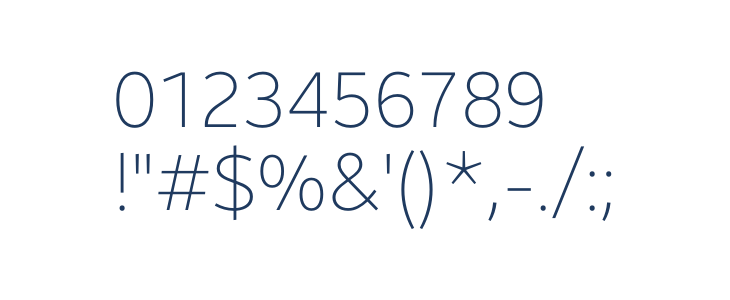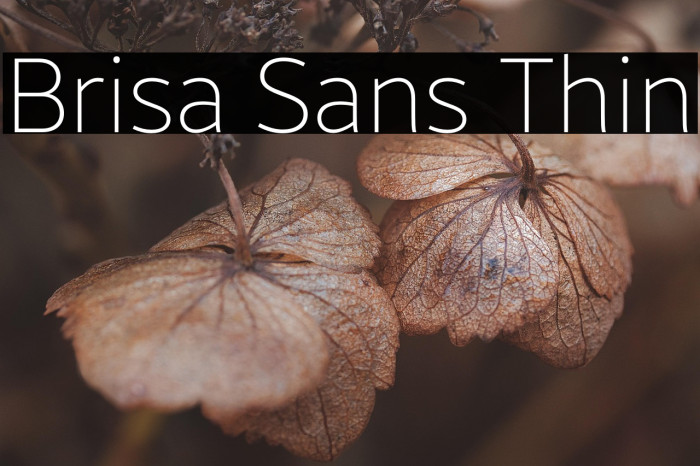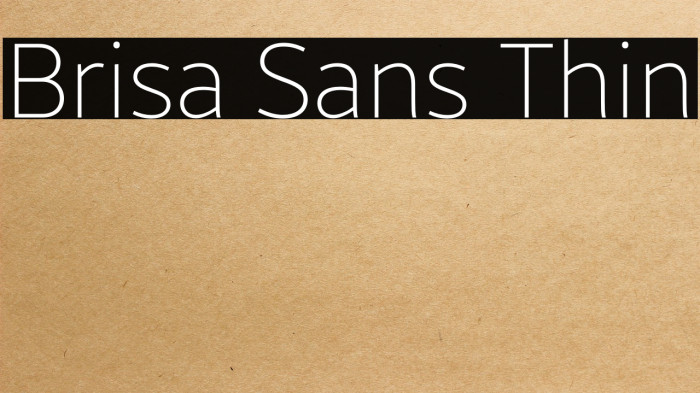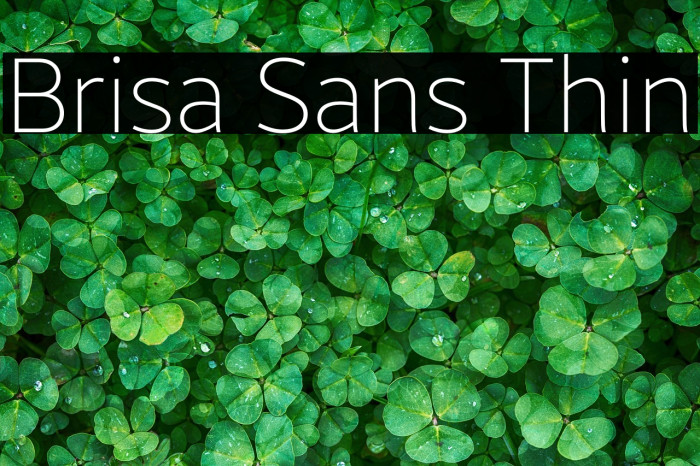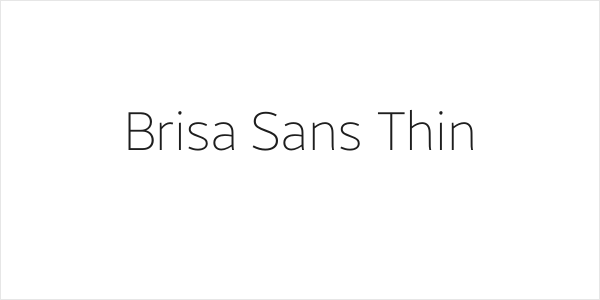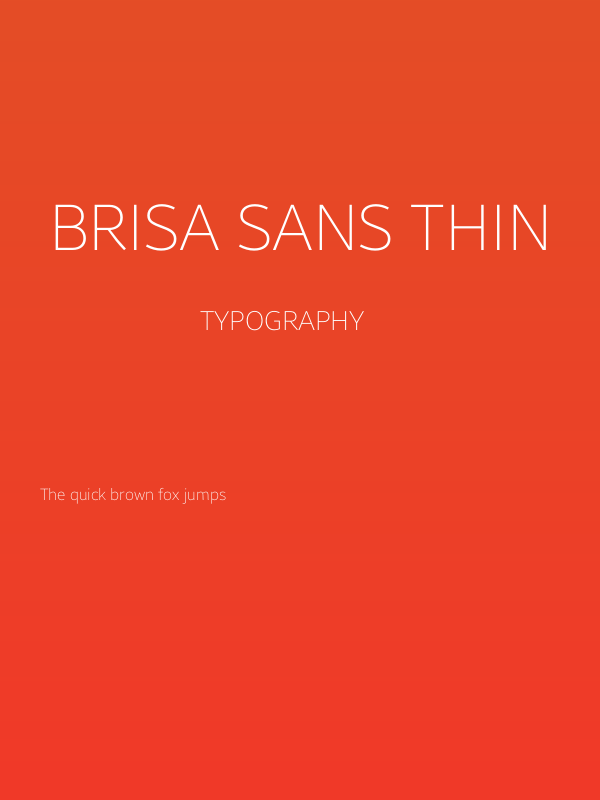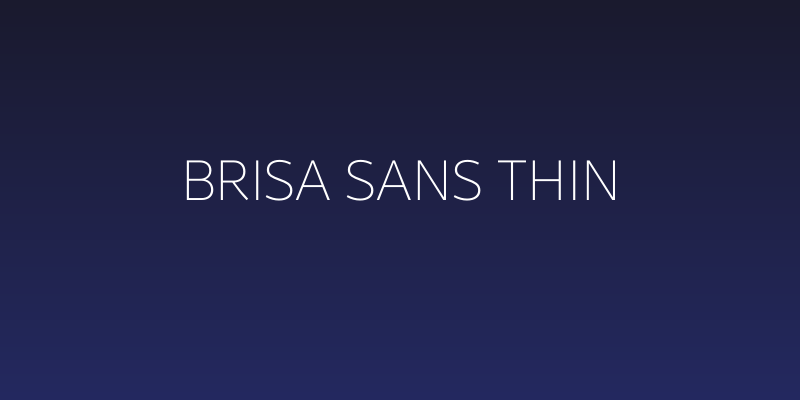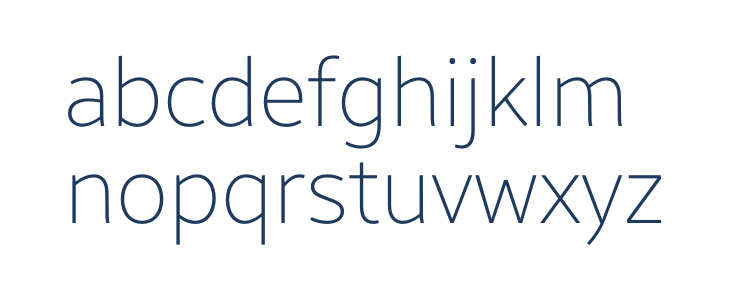
Brisa Sans Thin Font
Brisa Sans Thin Description
This font exhibits a clean and modern sans-serif style with a thin weight, emphasizing simplicity and readability. The characters are well-proportioned with a consistent stroke width, contributing to a sleek and contemporary appearance. The uppercase and lowercase letters maintain a harmonious balance, while the numerals and special characters are designed with clarity in mind. The overall design is minimalistic, making it suitable for a wide range of applications where a subtle yet professional look is desired.
| Proposed Projects | Ideal for modern web design, corporate branding, minimalist posters, and user interfaces. |